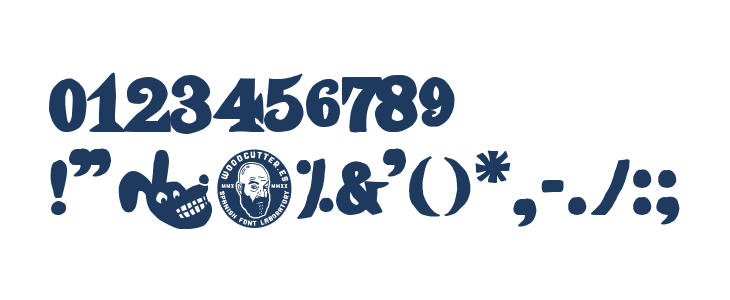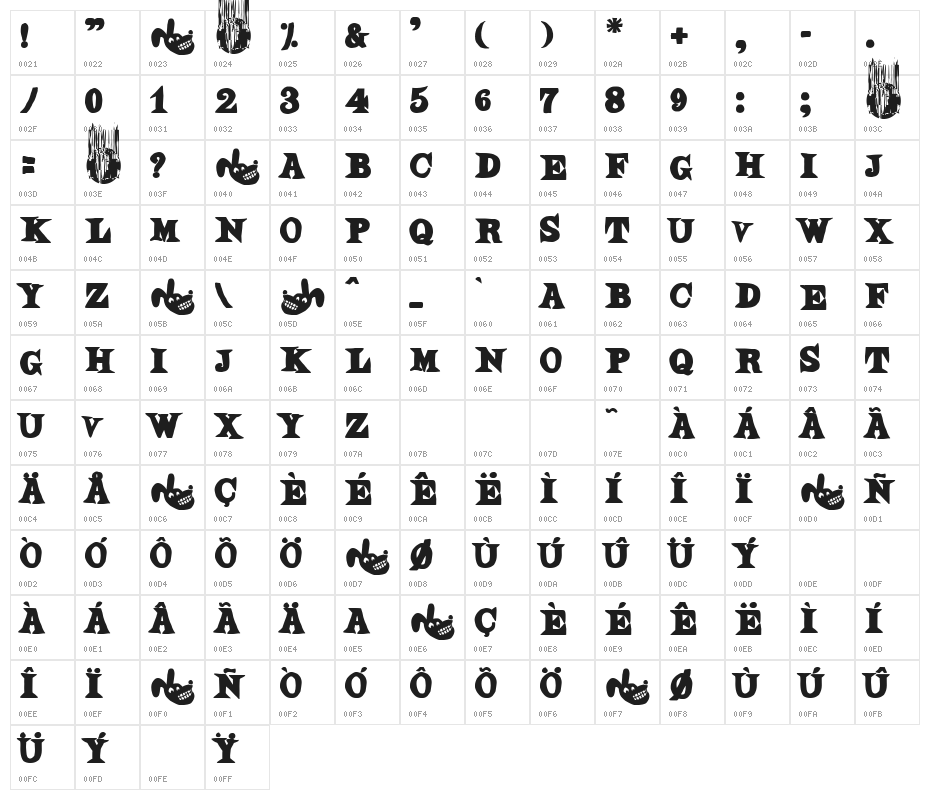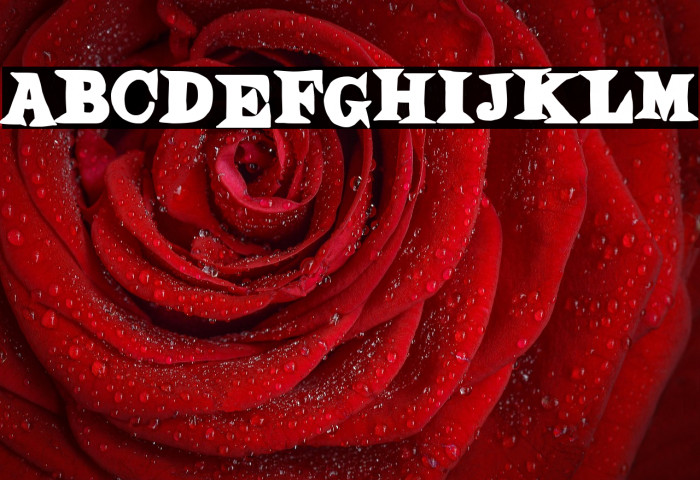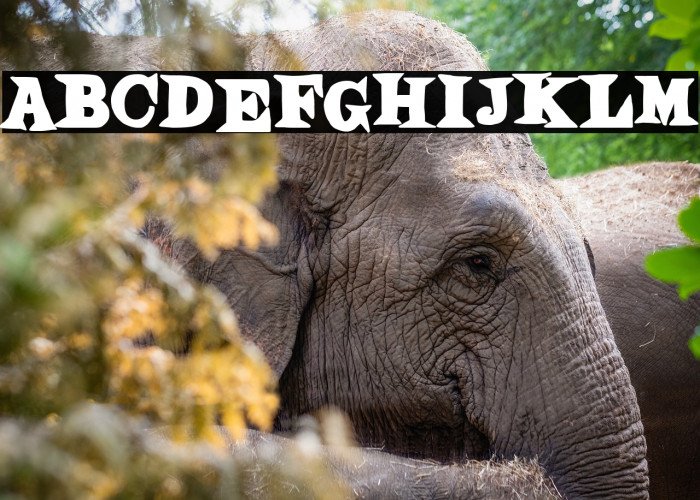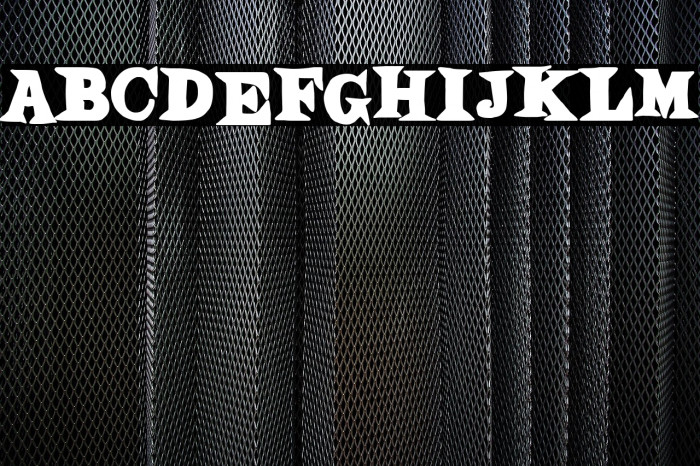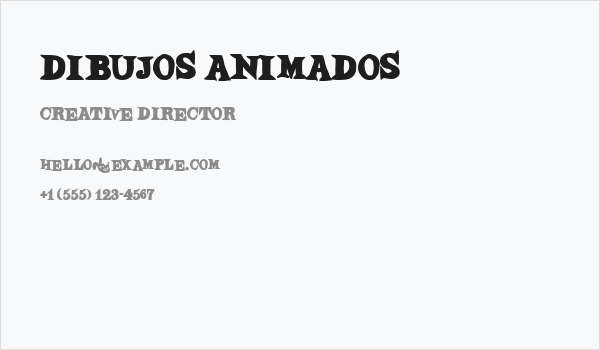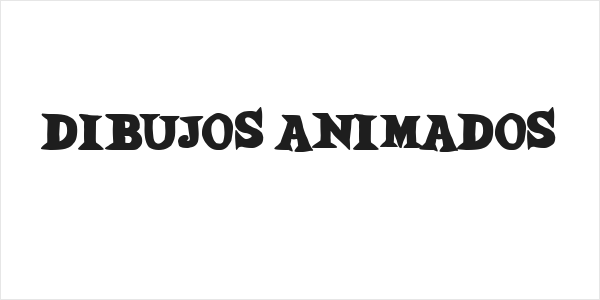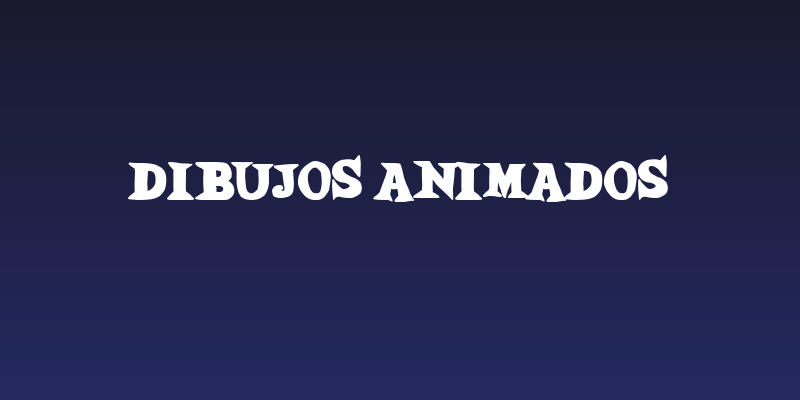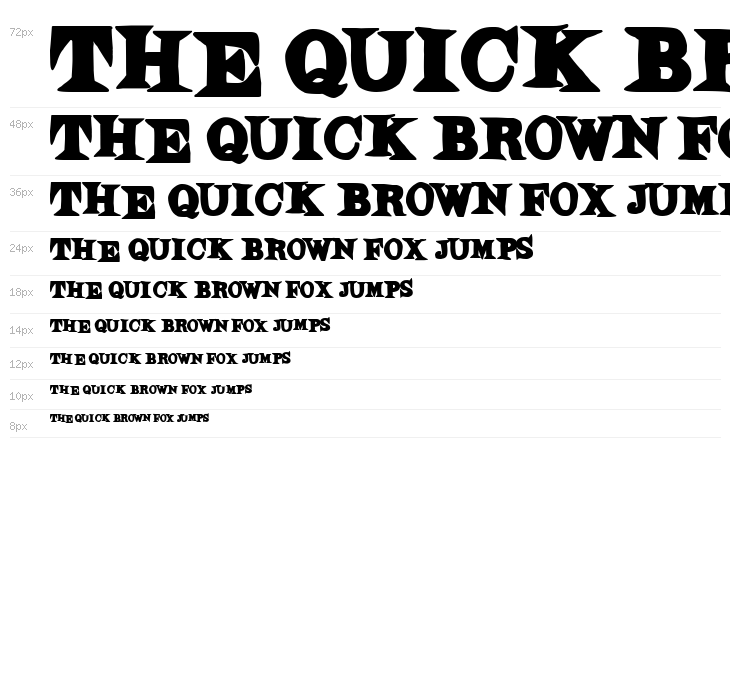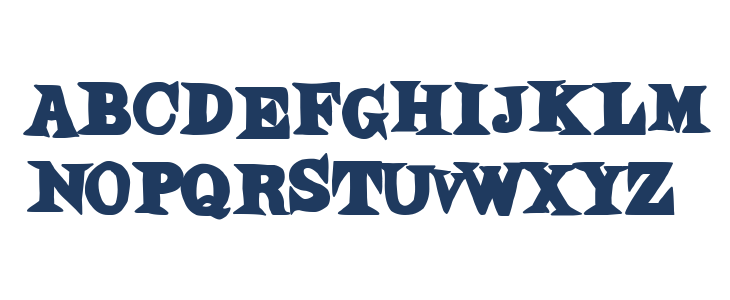
Dibujos Animados Font
Dibujos Animados Description
This font features a bold and playful design, characterized by its exaggerated serifs and whimsical curves. The uppercase letters are robust and dynamic, with a sense of movement that adds a lively touch to any text. The lowercase letters maintain the same playful style, ensuring consistency across different text cases. The numbers are equally bold, with a distinctive flair that makes them stand out. Special characters are creatively designed, adding to the overall fun and animated feel of the font. This font is perfect for projects that require a touch of humor and creativity, making it ideal for children's books, cartoons, and playful branding.
| Overall Style | Playful, Animated |
| Proposed Projects | Ideal for children's books, cartoons, playful branding, and creative posters. |